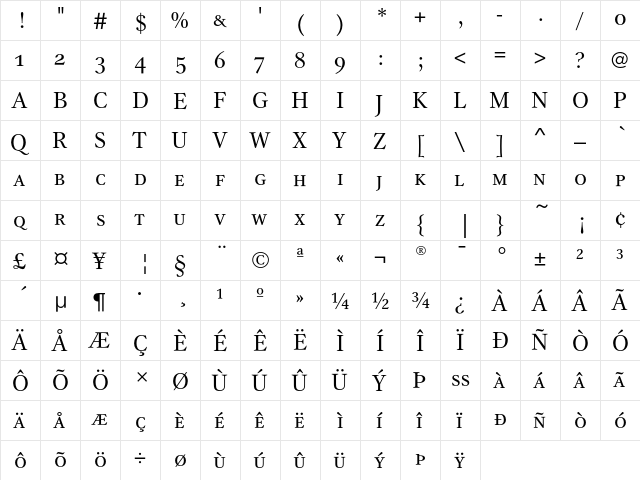
GammaSCEF Book
Design Context for GammaSCEF Typeface
GammaSCEF takes a measured approach to typography — its balanced proportions and neutral character make it a reliable workhorse for both digital and print work.